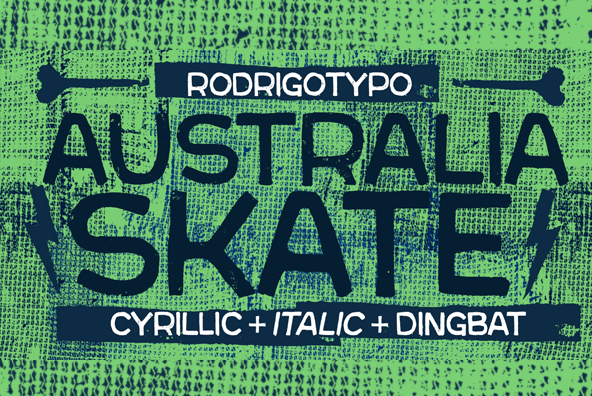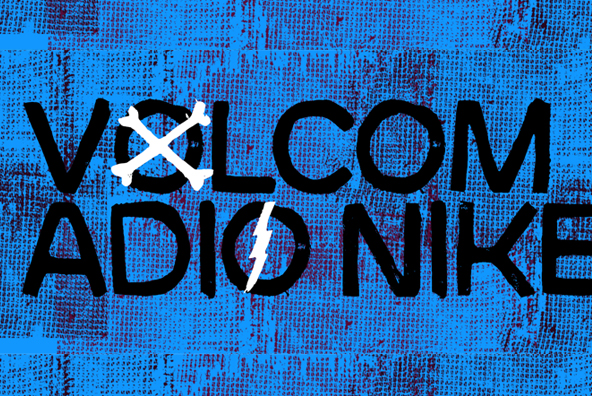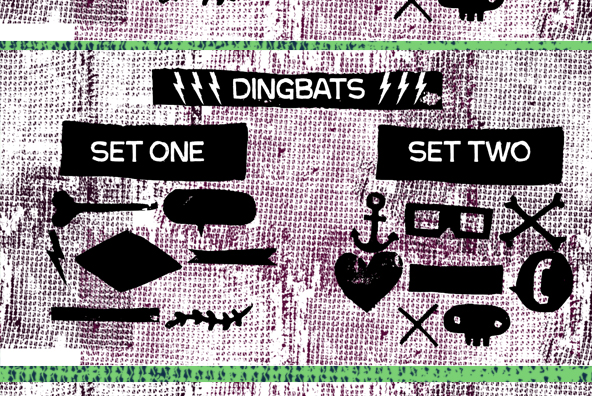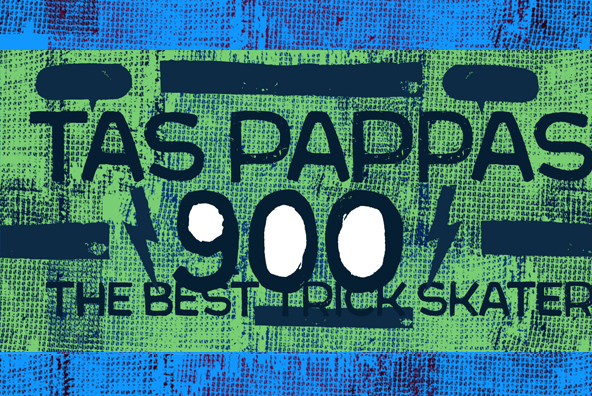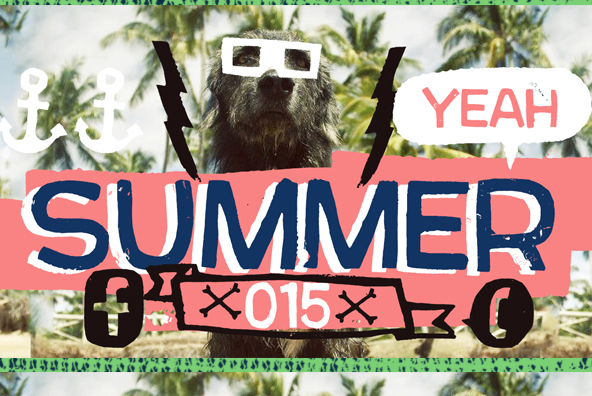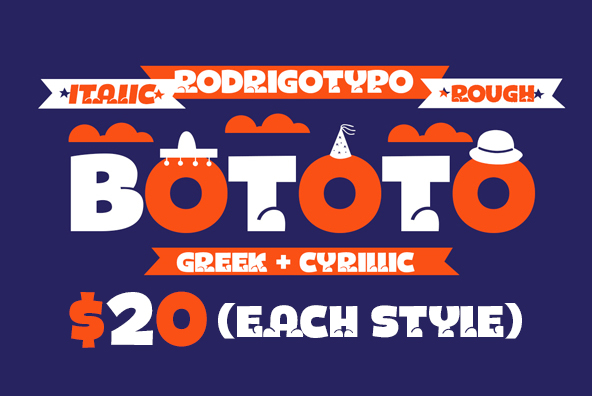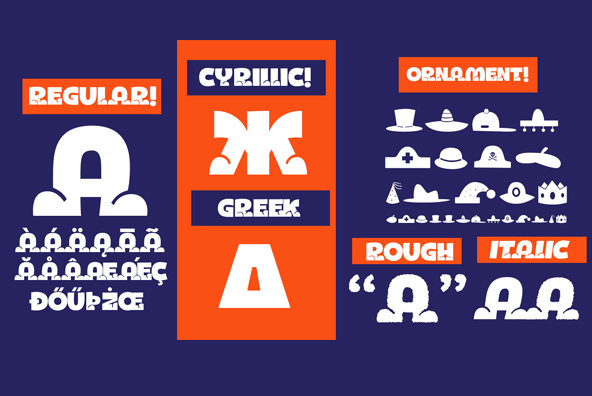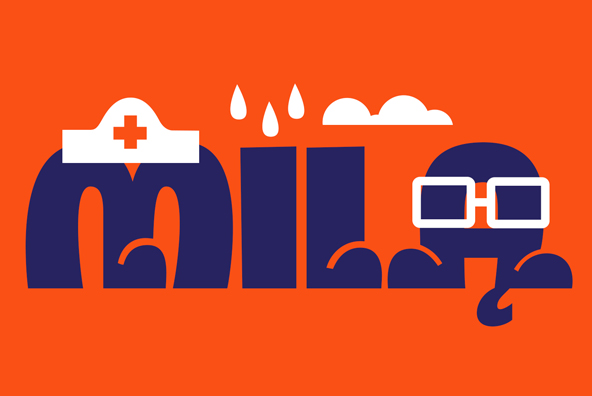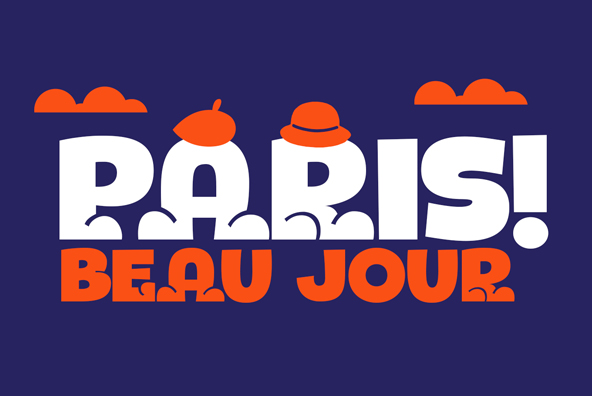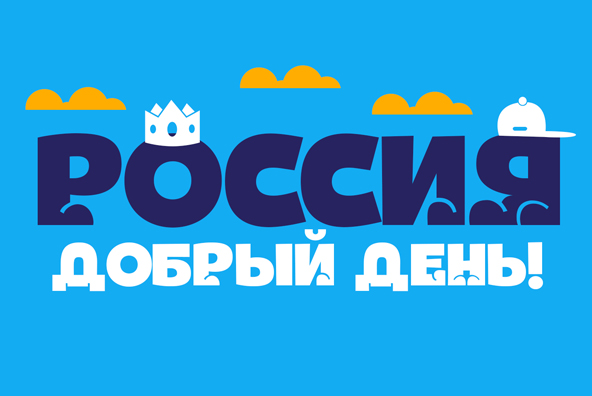
17 Cool & Funny Custom Fonts
Typography plays a very significant role in present design. Specialy unique custom fonts can be a very powerful tool in your design artillery.
1. Pintanina by RodrigoTypo
Inspired by titles found in Chilean comics, Pintanina is a font designed by Rodrigo Araya Salas.
2. KoniBlack by RodrigoTypo
Inspired by mona, konga, laika, Koni Black was created as something better than what had been done before in this genre.
3. Laika Pro by RodrigoTypo
Laika Pro is a font inspired by the Russian alphabet.
4. Cucho Family by RodrigoTypo
New typeface, try to be entertaining and playful, with alternatives that help the designer and illustrator to create a much more striking concept.
5. Froh by RodrigoTypo
Typeface designed for illustrators by Rodrigo Araya Salas.
6. Macabro by RodrigoTypo
MACABRO FAMILY, is a grunge typography, handmade whose concept, fear terror phobia among others, Cyrillic and Greek are also design also has several varieties, from italic, outline, rough, etc.
7. Bototo by RodrigoTypo
Cool typeface designed for illustrators by Rodrigo Araya Salas.
8. Tobogan by RodrigoTypo
A display typeface, playing with her curves, heavy but very nice, concepts of joy, entretention, sympathy, madness.
9. Munky by RodrigoTypo
Typography inspired and designed for video games or applications online, a fat and heavy typography with different alternatives, swash, set dingbat, rough, and also contains Cyrillic alphabet, which also have swash, “Munky” invites the designer, to create dynamic titles and quite entertaining way.
10. Pequena by RodrigoTypo
Pequena was designed to used for children’s stories. It contains Cyrillic and Greek language support.
11. Marty by RodrigoTypo
Marty is a serif font designed for children’s stories.
12. Children One by RodrigoTypo
Children-One was inspired by drawing freehand letters in a childish style. Contains Cyrillic and Greek language support, as well as OpenType swash features.
13. Mona Family by RodrigoTypo
“Mona” is a display typeface with 3 variants: MonaBlack Regular (the standard version), MonaRock (a raw or even grunge version), and MonaStyle (where the letters are replaced by illustrations and pictograms). This typeface includes also Cyrillic.
14. Australia Skate by RodrigoTypo
Australia Skate is typeface that shows anger, power, destruction, and skate-inspired style.
15. Paihuen pro by RodrigoTypo
Paihuen Pro, is a graphic mapuche inspired in some part rock containing different alphabets included as cyrillic, typography style has more rough italic.
16. Vector Love by RodrigoTypo
Game of combination font, Dingbat By: Rodrigo Araya Salas.
17. Comando X by RodrigoTypo
Dingbat font with faces and bodies. You can create amazing characters ;)